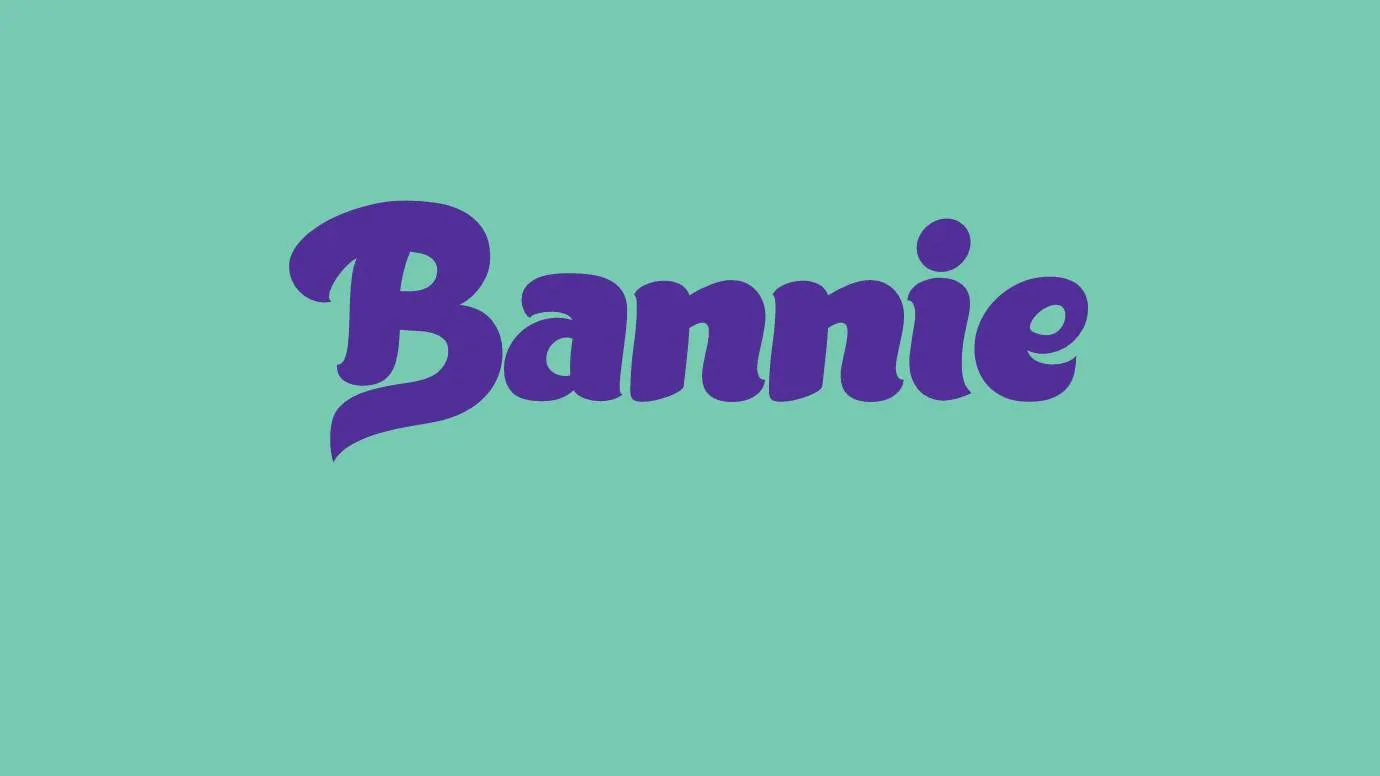
Bannie Font Family is a very attractive script-type font. It was designed by Dian Hanif and manufactured by BearyType. The look of this font is very funky and friendly. This typeface is also good for making all personal and commercial projects.
| Name | Bannie Font |
| Designer | Dian Haniff |
| Type | Fancy |